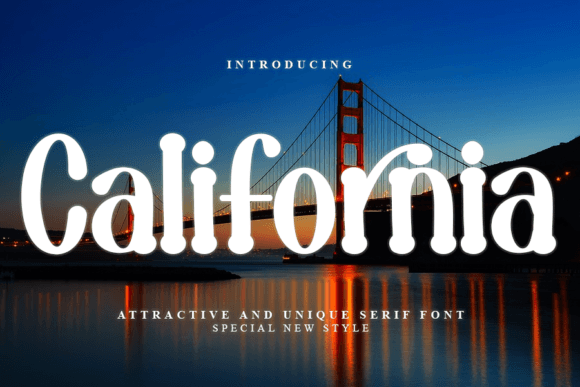
California Font
California is a cool and modern serif font. Whether you use it for crafts, digital designs, presentations, or creating greeting cards, this font has the potential to become your favorite font, whatever the occasion.